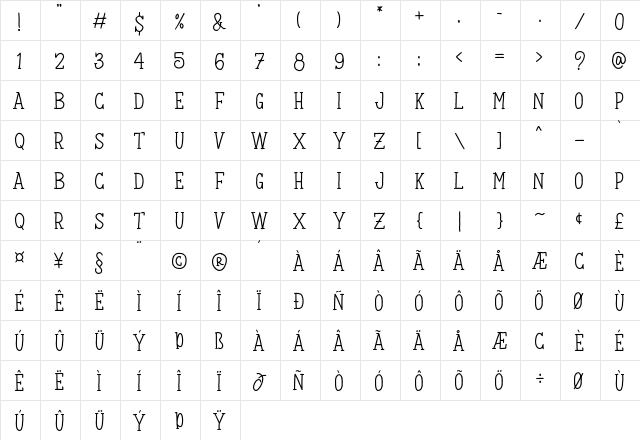
Kulon Regular
| Foundry | Letterhend Studio |
| Designer | Letterhend Studio |
Design Context for Kulon Typeface
Kulon takes a measured approach to typography — its balanced proportions and neutral character make it a reliable workhorse for both digital and print work.